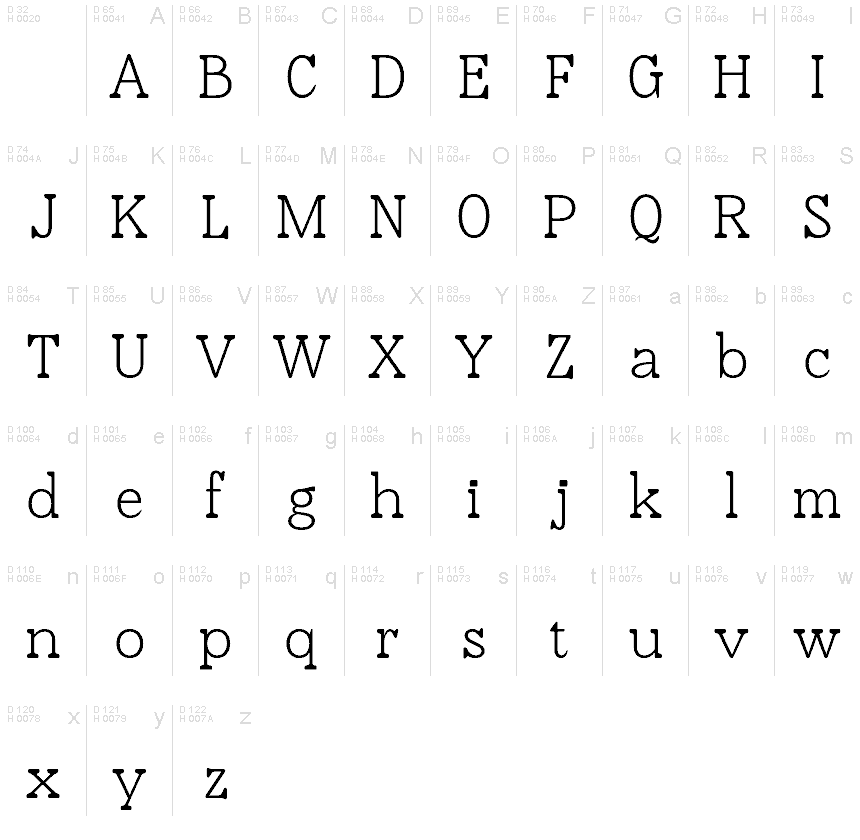
CS Collagen Regular Demo
CS Collagen font by Craft Supply Co. is a free classic serif font with sophisticated details of traditional styles, curve brackets, and decorative elements. Its characters are elegant and keen to create charm within titles and texts. The typeface connects words which makes it useful for computers, professional decoration works, or for personal use.
Suggested use cases would be applications in magazines & books headlines, newspapers content & covers, posters design, advertisement visuals, branding projects such as engaging logos. It will work nicely on packaging designs as well especially those based on printables.